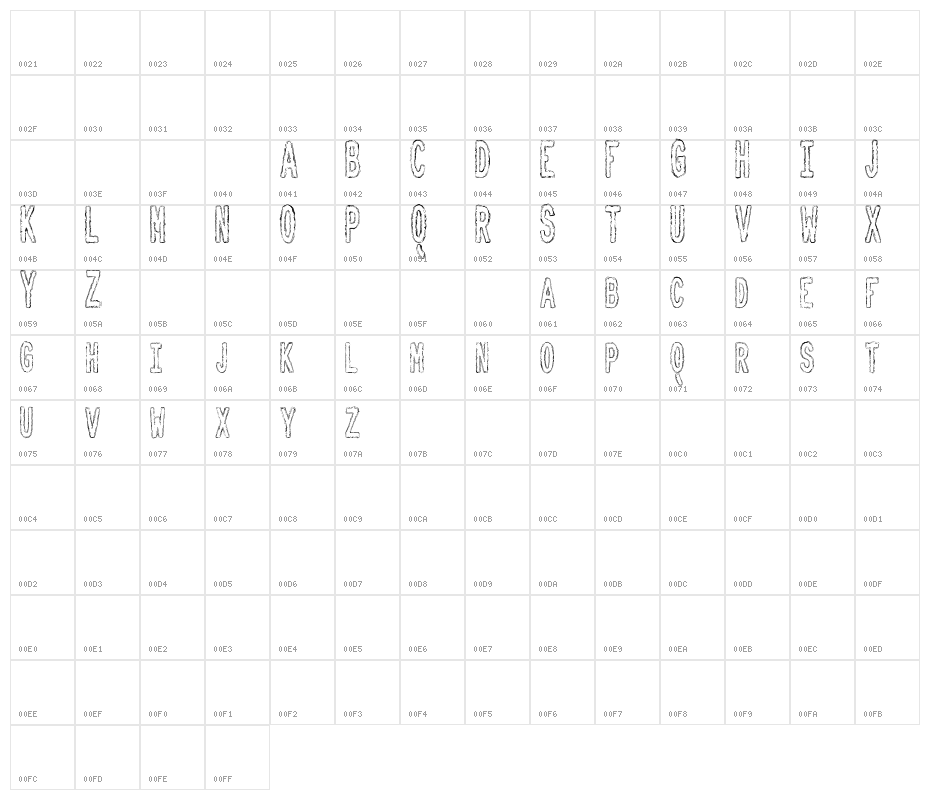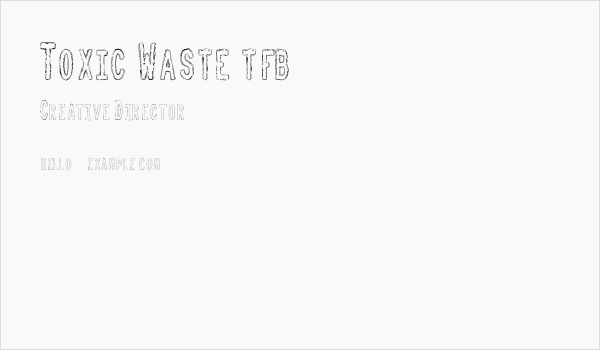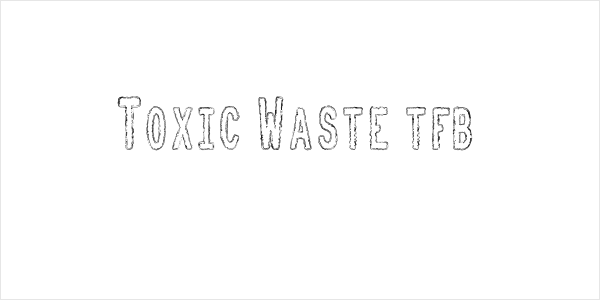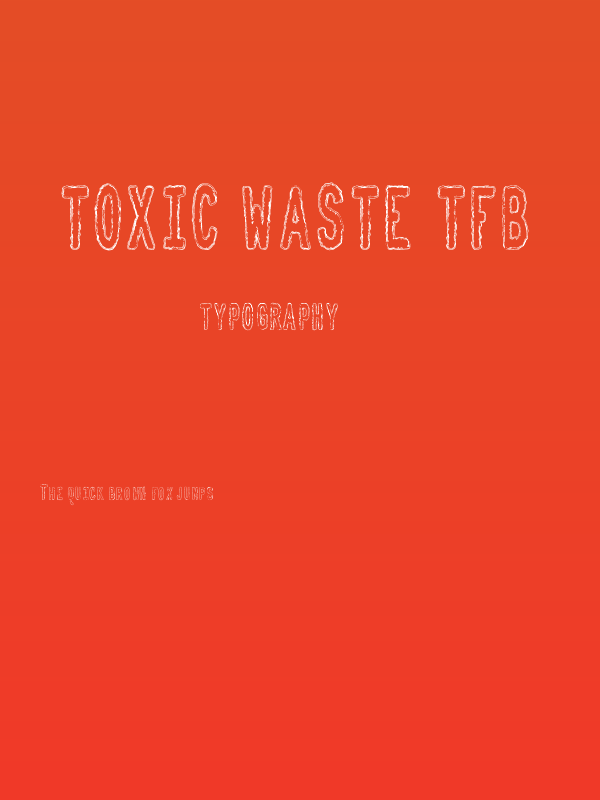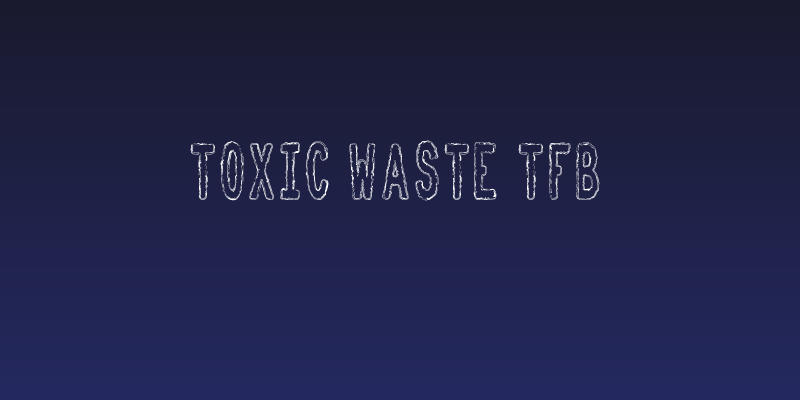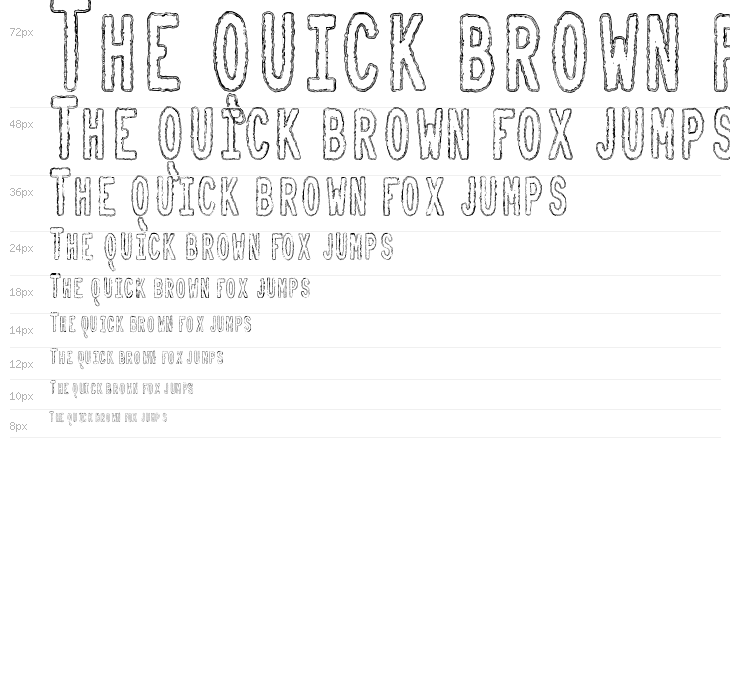
Toxic Waste tfb Font
Toxic Waste tfb Description
This font features a rugged, distressed appearance with a hand-drawn quality. Each character is outlined with a rough, uneven texture that gives it a worn and weathered look. The uppercase and lowercase letters maintain a consistent style, with slightly irregular edges that add to the font's unique character. The numbers and special characters follow the same design, ensuring a cohesive appearance across all glyphs. This font is ideal for projects that require a gritty, industrial feel, such as posters, album covers, or themed event materials.
Proposed ProjectsIdeal for posters, album covers, themed events, or any project needing an industrial, gritty aesthetic.